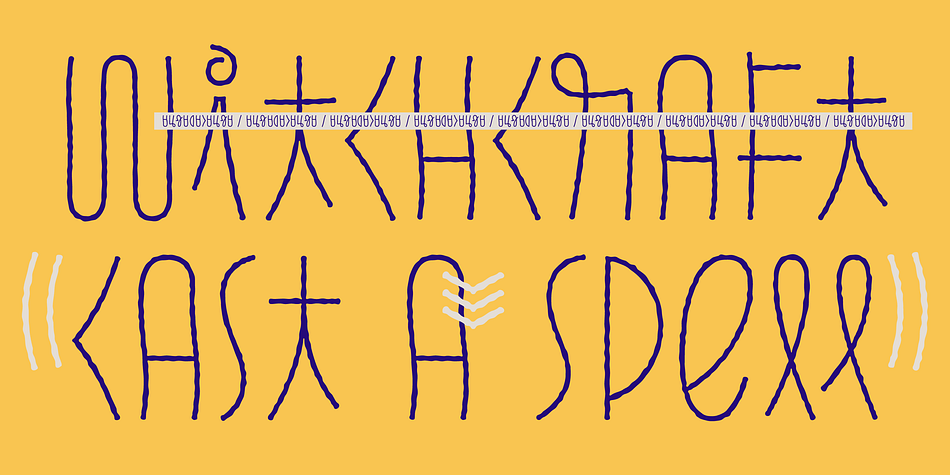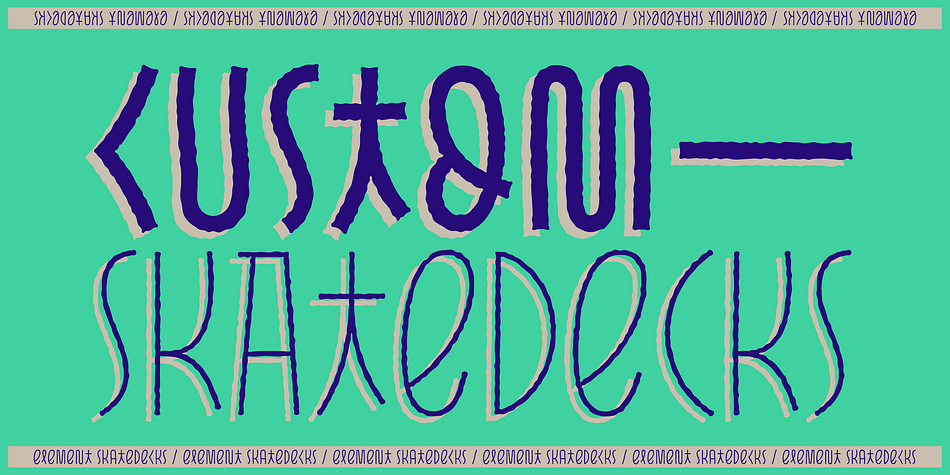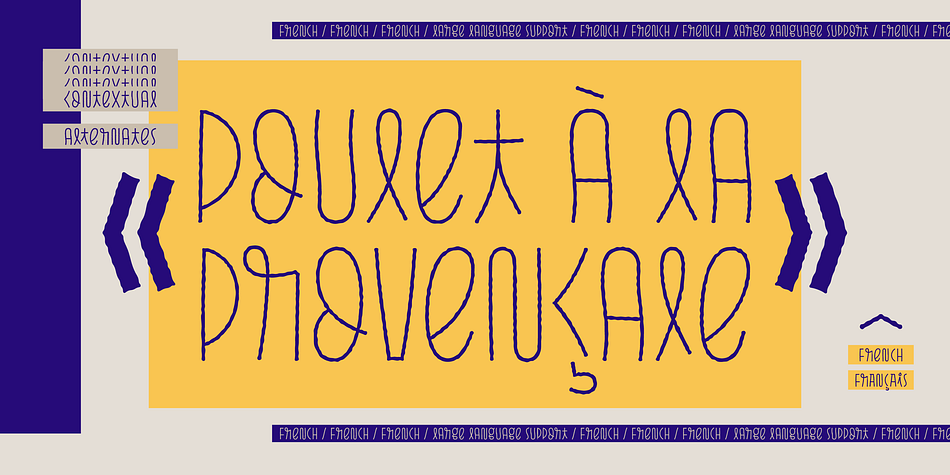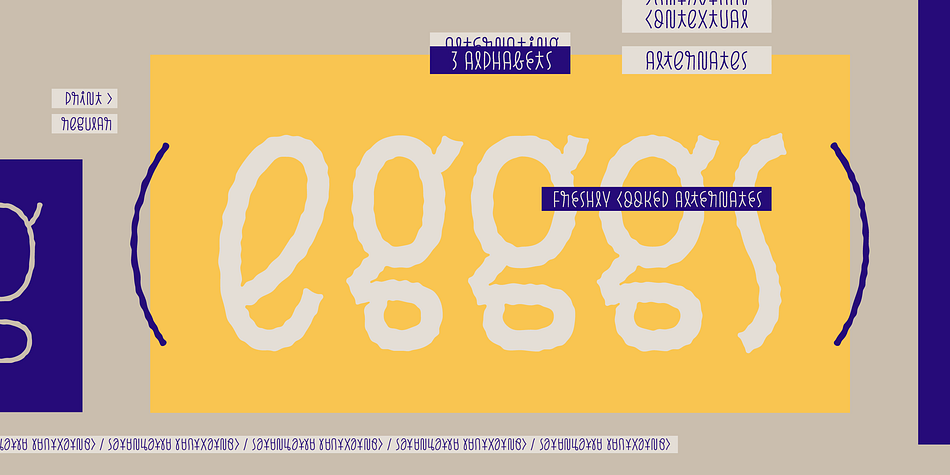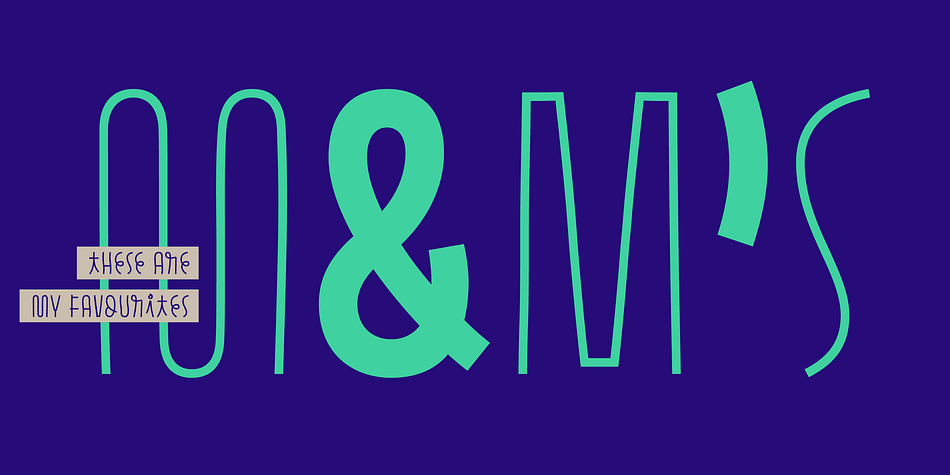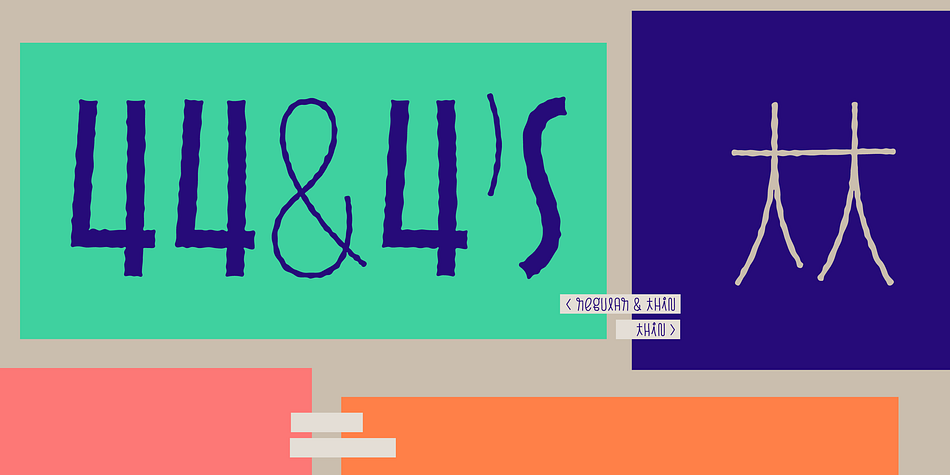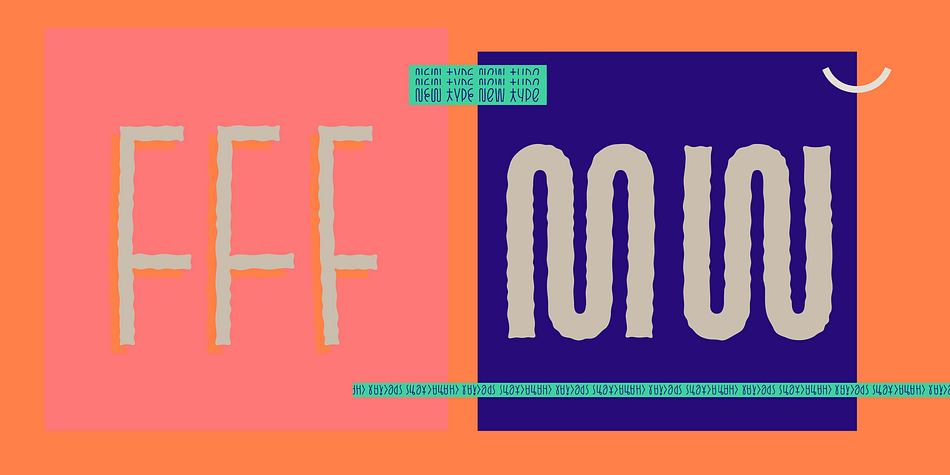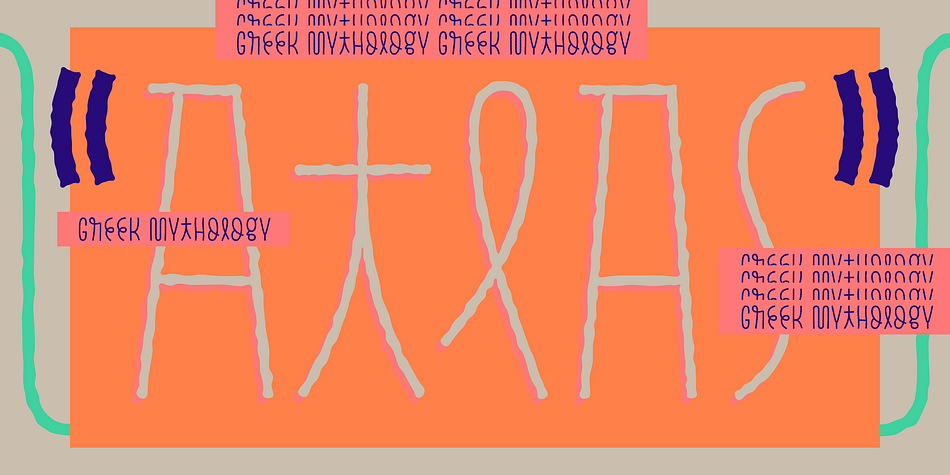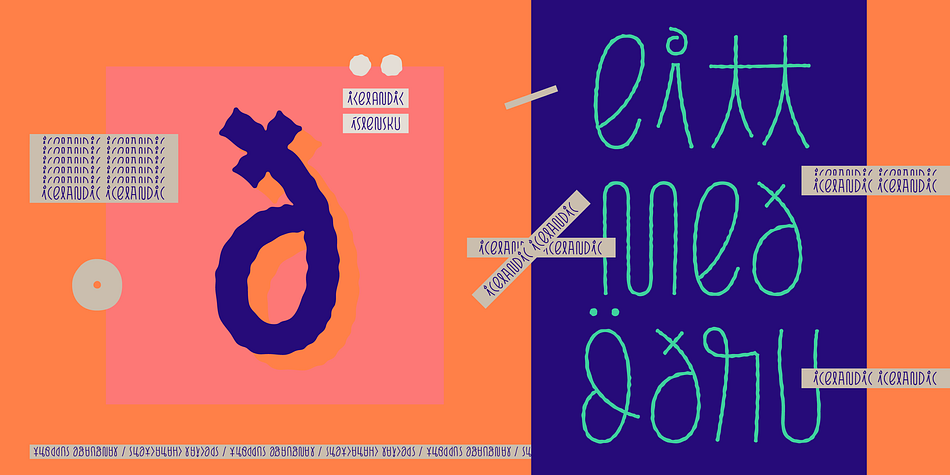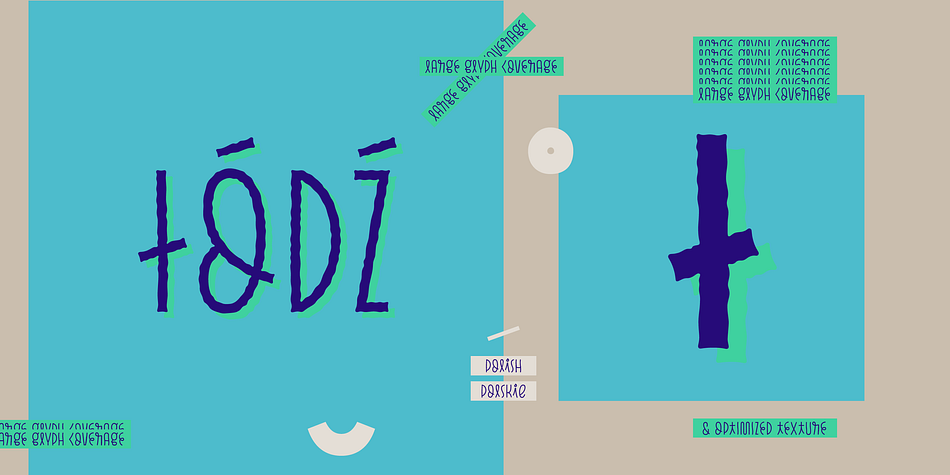
Designed by Julia Martinez Diana, Pasto is a hand display font family. This typeface has eight styles and was published by Antipixel.
Pasto is a fun and charming display type family of two styles and four weights each.
The first one, Print, is a textured irregular stamp style, and Sharp is a straightforward soft-edged type with clean strokes.
As the name Pasto suggests (“Grass”), this typeface has natural shapes such as curves, curls, and confident but delicate lines, making it playful yet strong. Going from Thin to Bold and from Print to Sharp, Pasto takes the different sizes and textures in grass and translates them into different rhythms.
With developed OpenType Contextual Alternates, this type family provides three alternating alphabets that are automatically replaced in turn repeatedly to avoid the same letterforms and textures appearing next to each other, once more referring to its natural uniqueness inspiration.
Ligatures are available for specific character combinations, to improve the overall look of the word or sentence.
Perfectly suited for graphic design and any display use, Pasto has very large language support allowing users to write in English, Spanish, Italian, French, German, Polish, Czech, Icelandic, among many others! Special characters and currency symbols are also available.